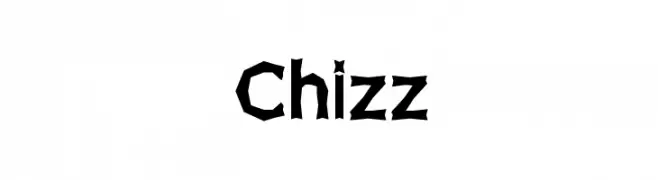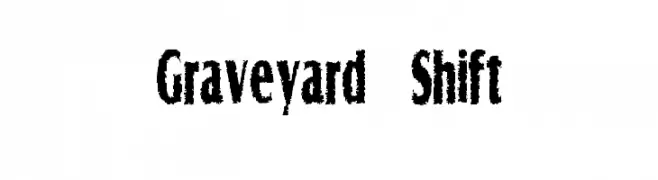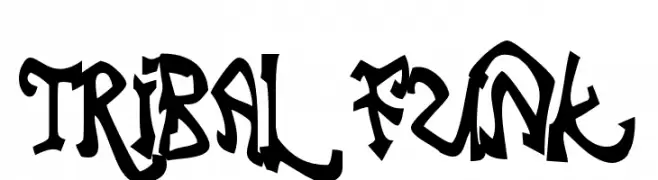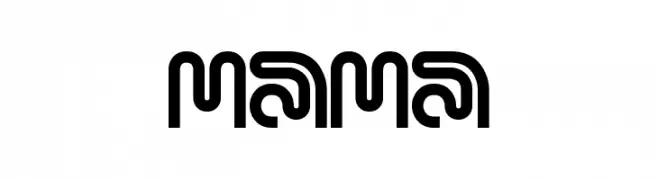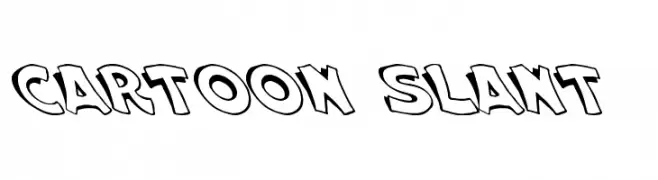
( Fonts by Apostrophic Lab )
A bold, chiseled font with jagged edges and an organic, handcrafted feel.
( Fonts by Peter Stanton )
A distressed, textured font with a rugged, vintage aesthetic.
( Fonts by or from www.graffitifonts.net )
A bold, tribal-inspired font with a funky, graffiti-like style.
( Fonts by Jacob Fisher - www.pizzadude.dk )
A bold, playful font with a whimsical and chunky design.
( Fonts by www.fenotype.com )
A bold, geometric font with a futuristic and modern design.